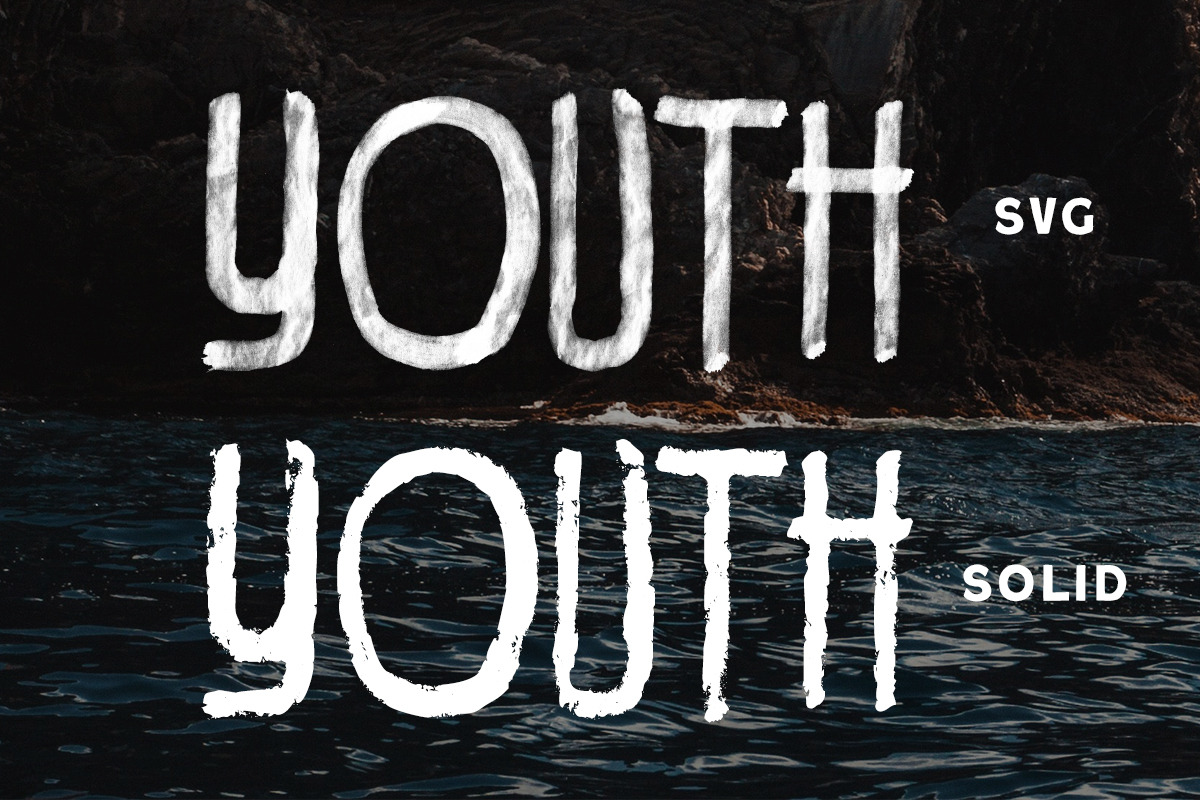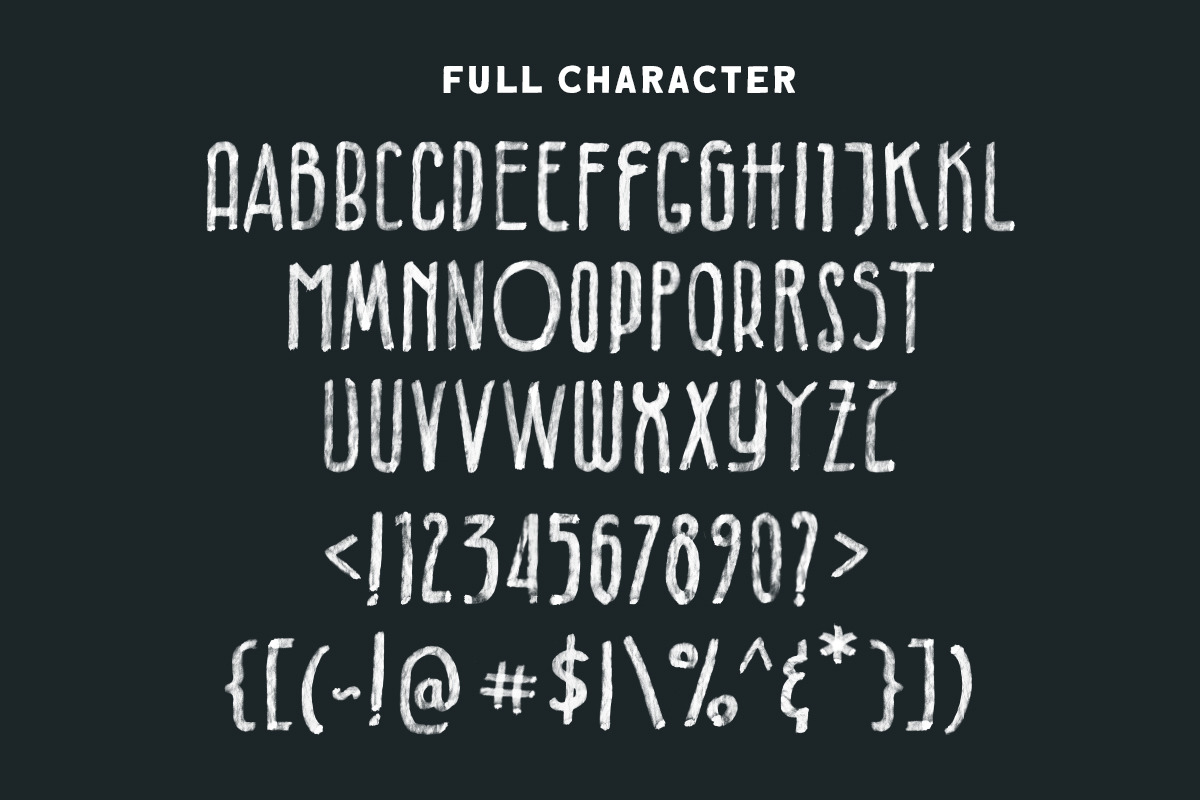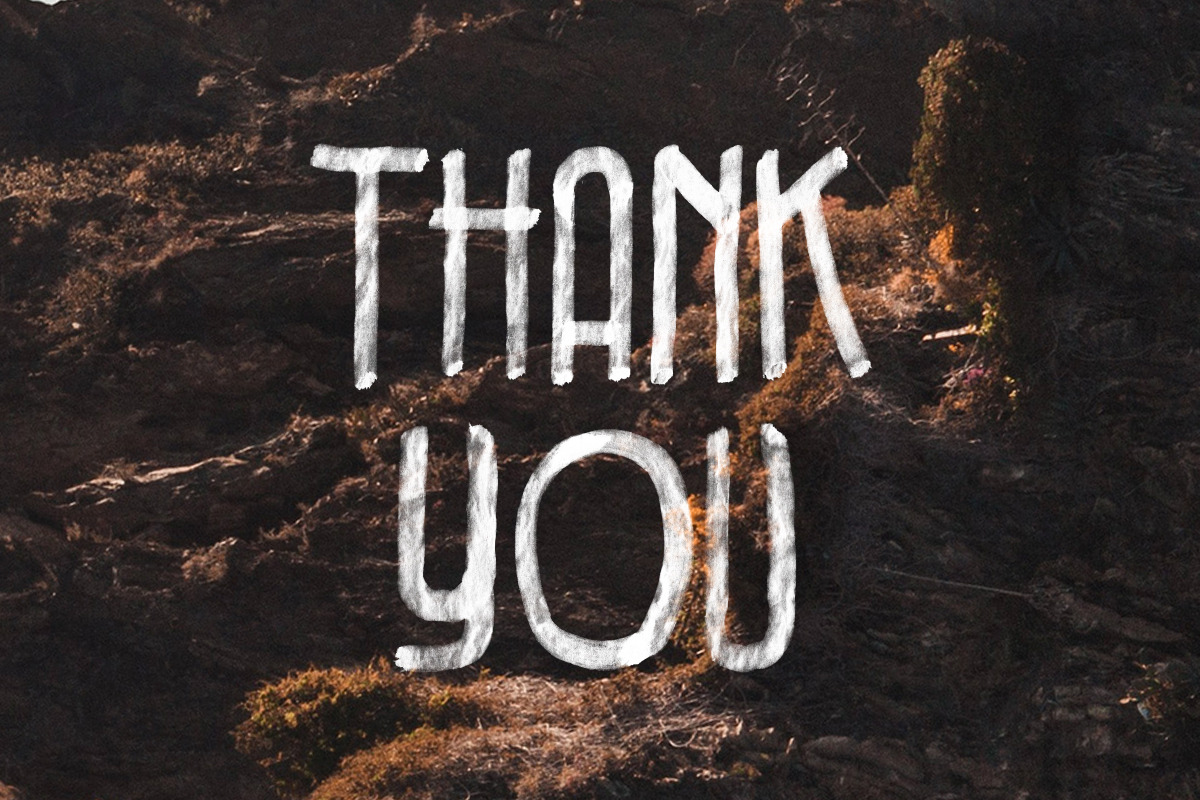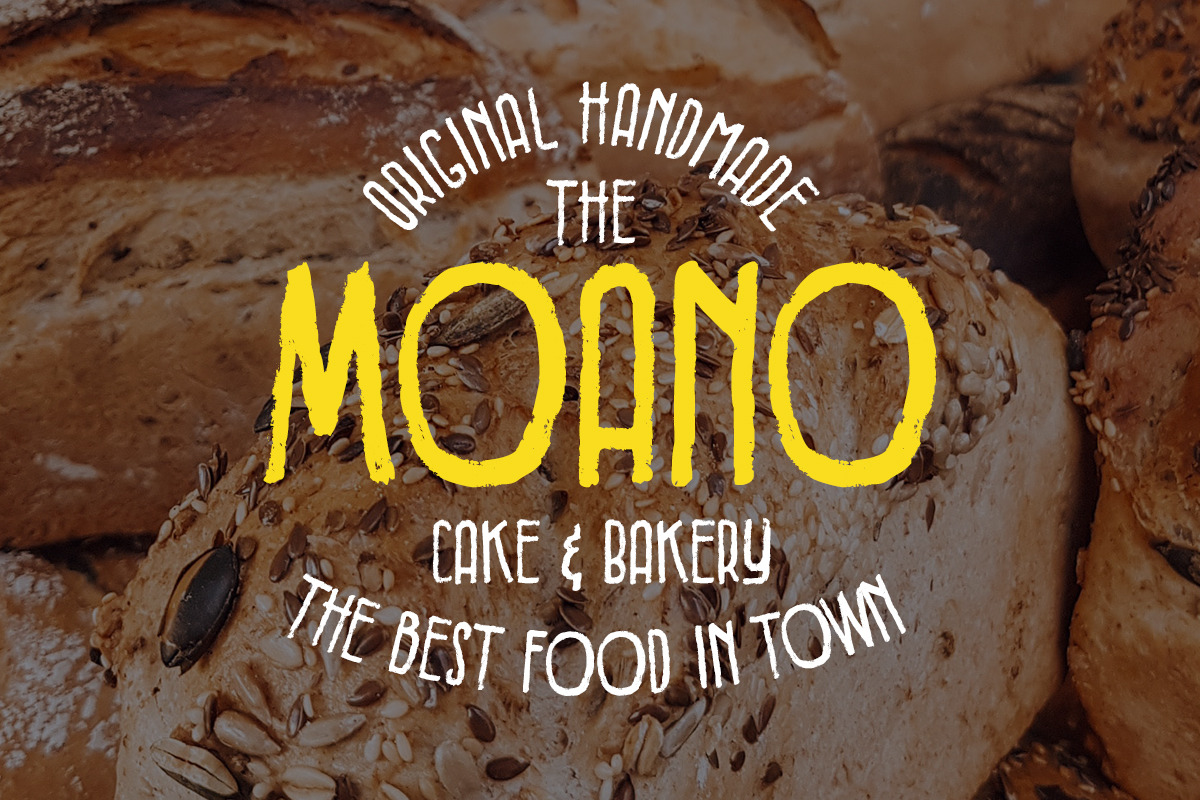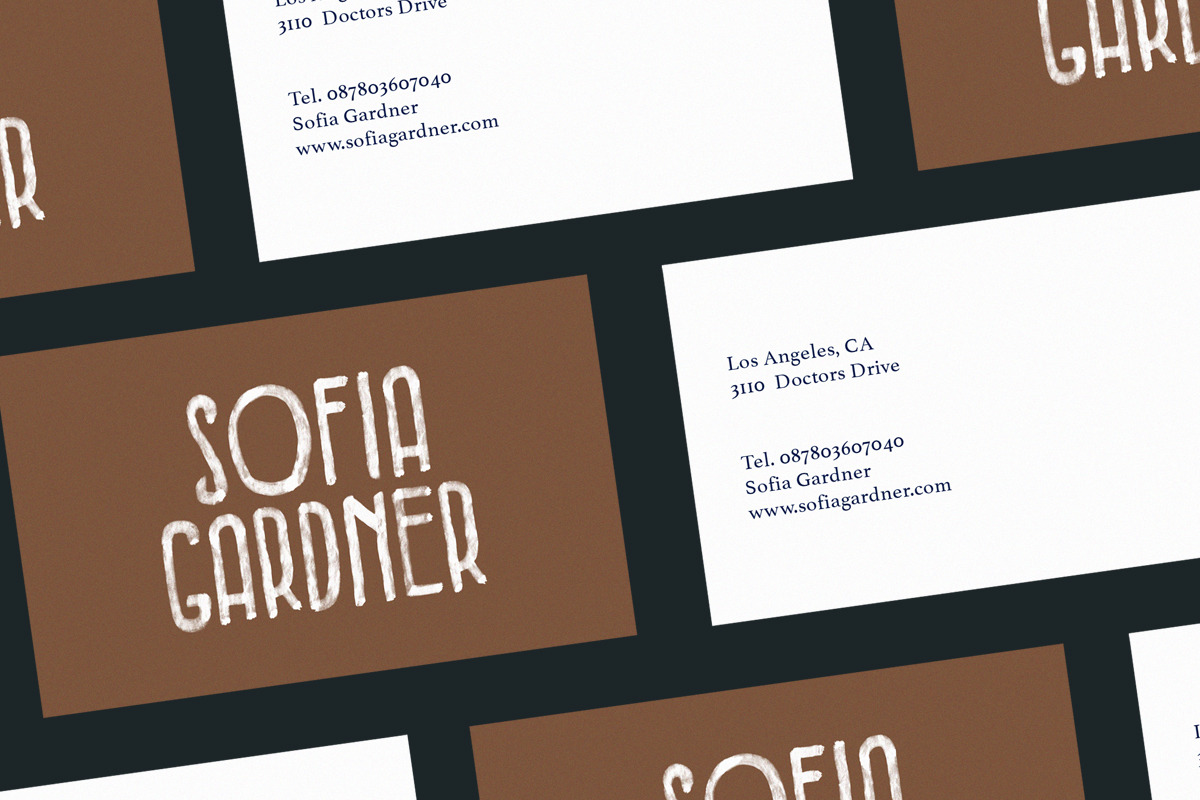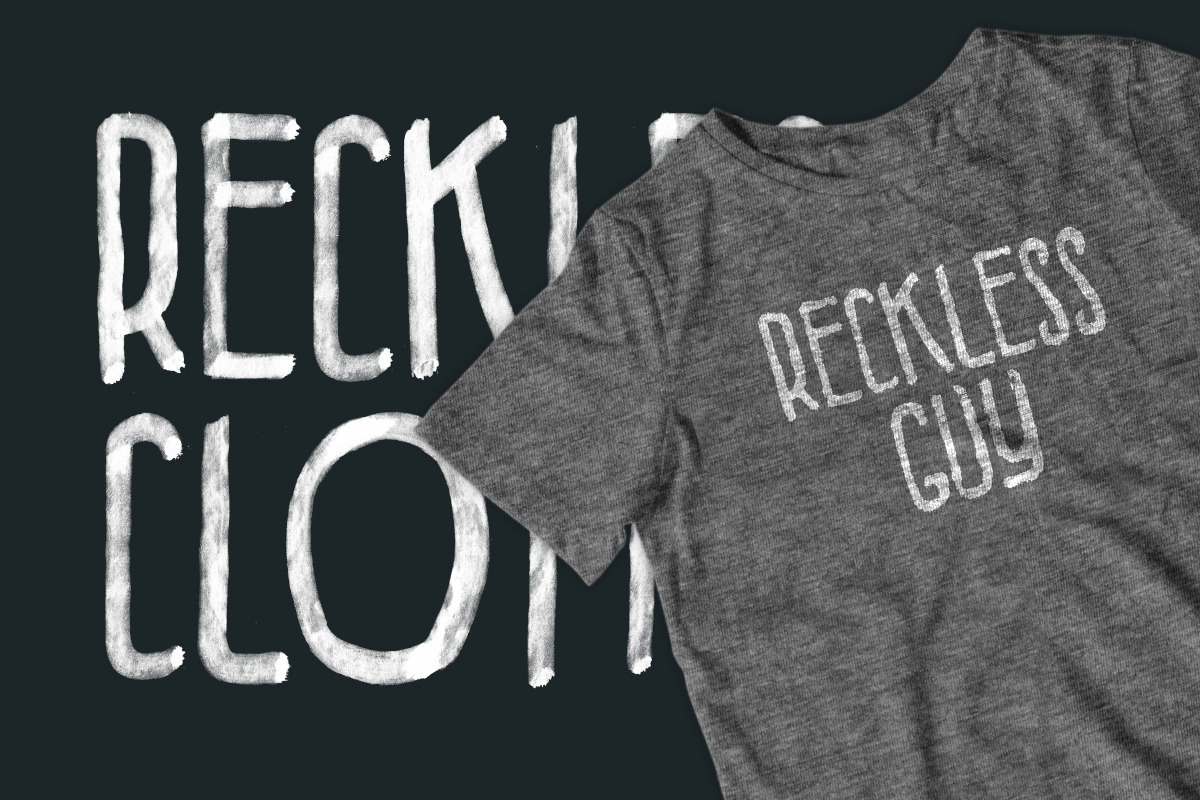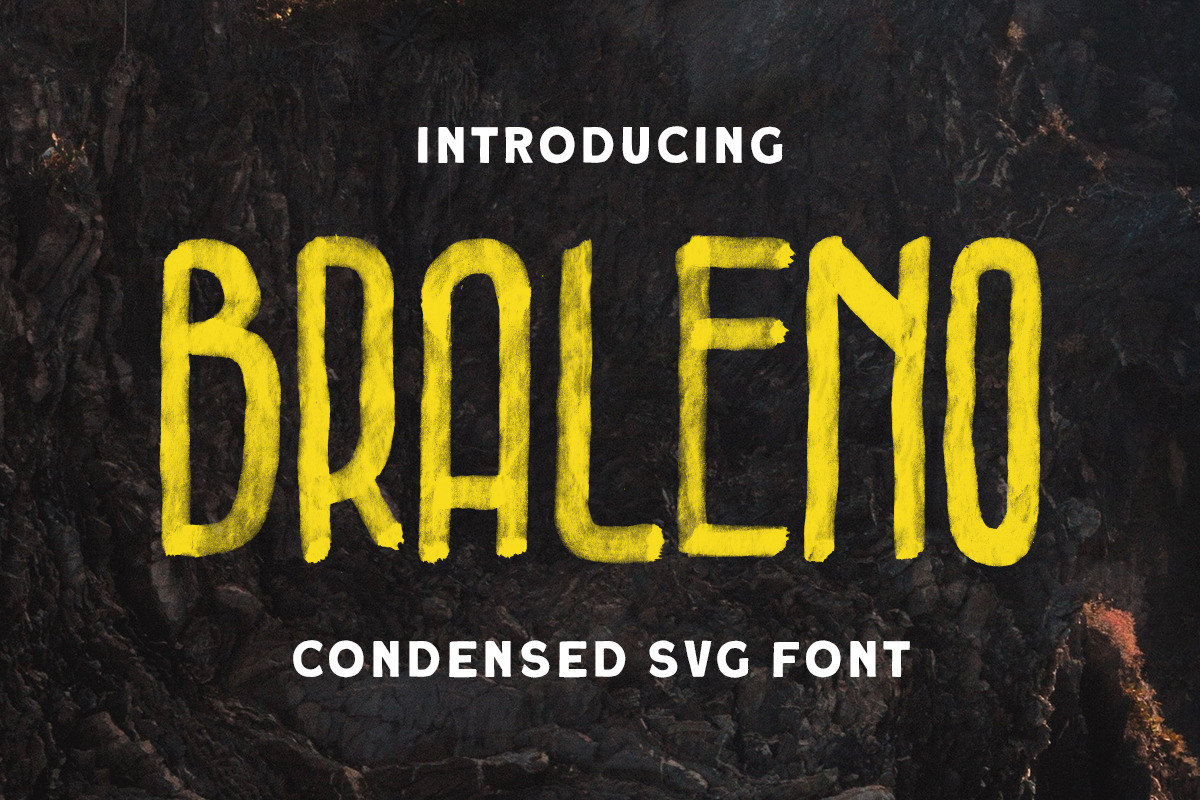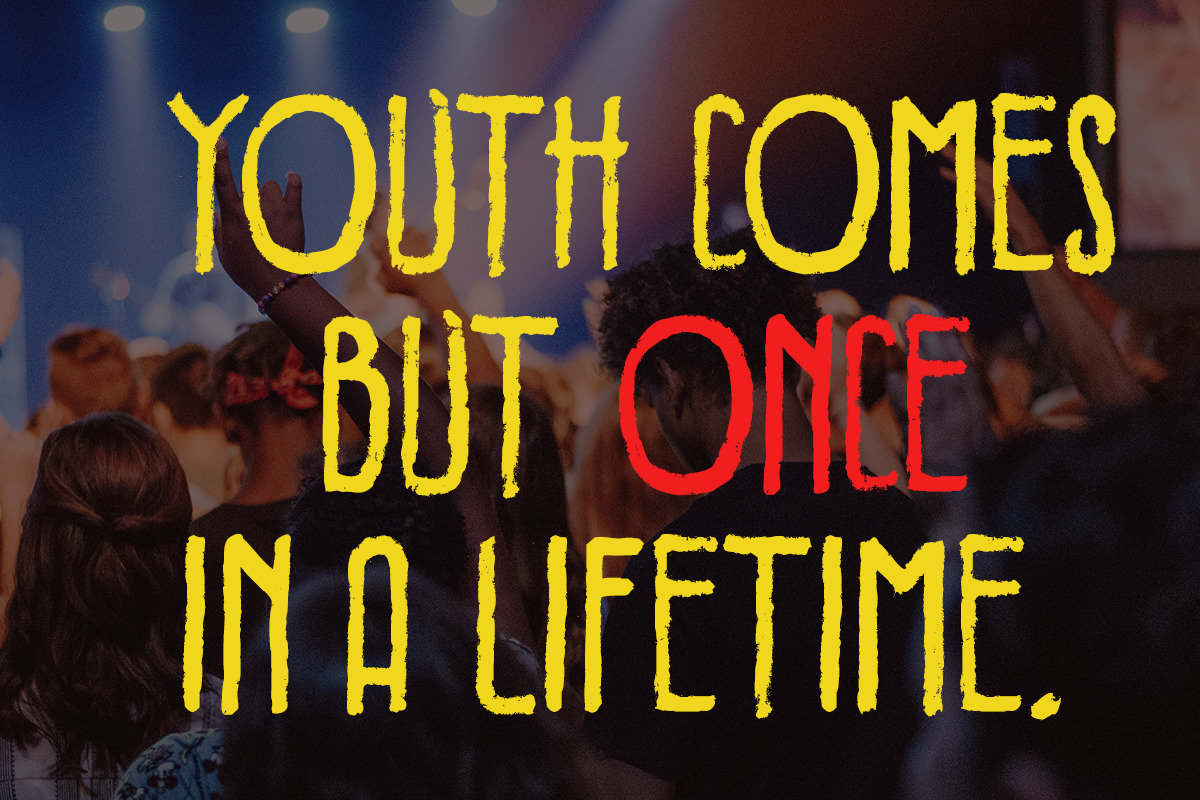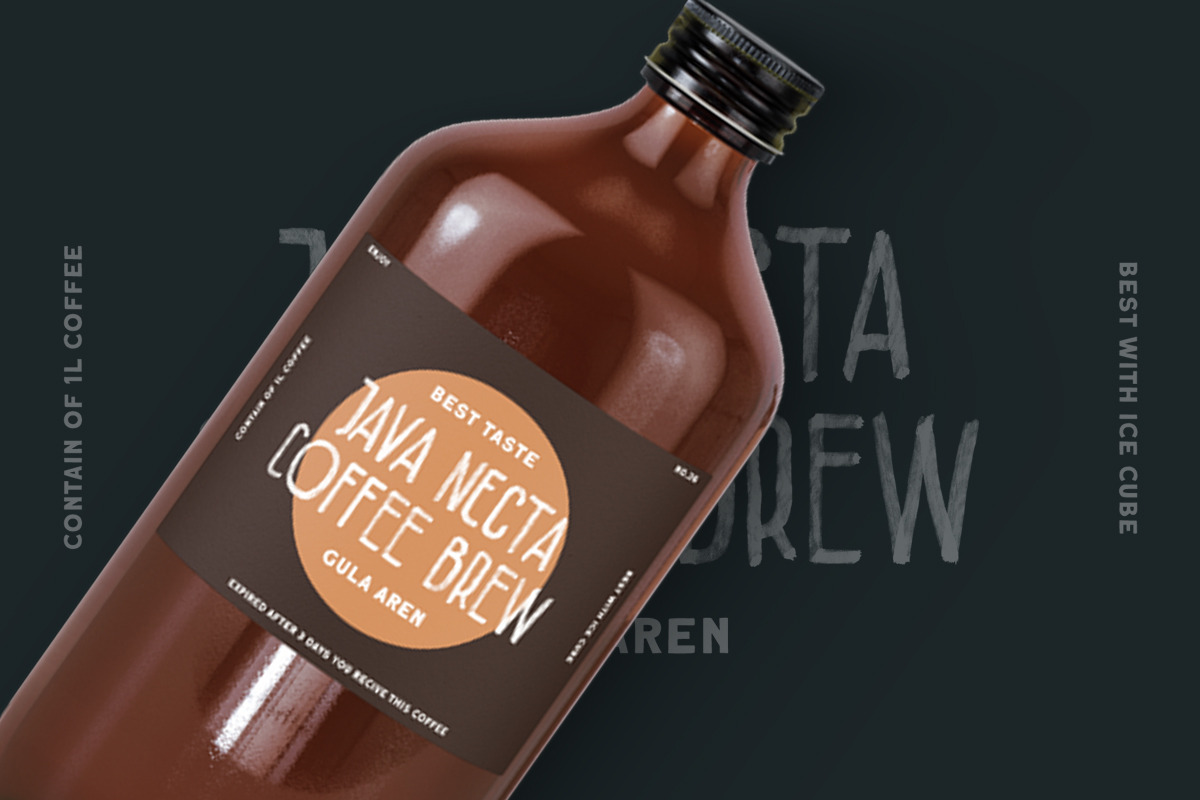
Braleno - Condensed SVG Font
Introducing, Braleno - a condensed SVG typeface. Available in two types, solid version and transparent version. This type of font perfectly made to be applied especially in headlines which is need a standout font, and the other various formal forms such as invitations, labels, logos, magazines, books, greeting / wedding cards, packaging, fashion, make up, stationery, novels, labels or any type of advertising purpose.